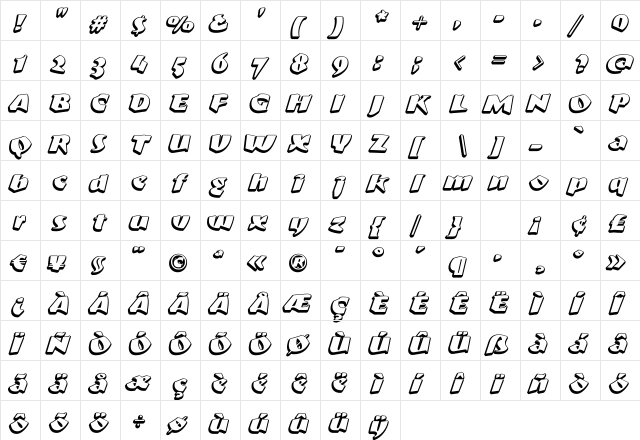
MeteorShadow Regular
Design Context for MeteorShadow Typeface
MeteorShadow brings ornamental detail and strong personality to headlines and identities, where visual impact matters more than quiet functionality.
Font Pairing: Pair with a clean neutral sans-serif for body copy to let MeteorShadow's character lead without overwhelming the composition.
Pro Tip: Treat MeteorShadow as the centrepiece of your typographic hierarchy. One strong heading set in a decorative face can carry an entire layout.